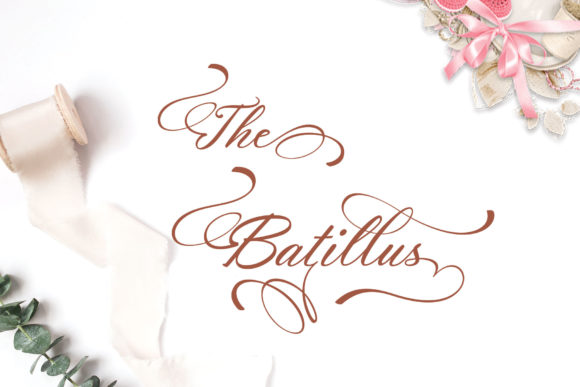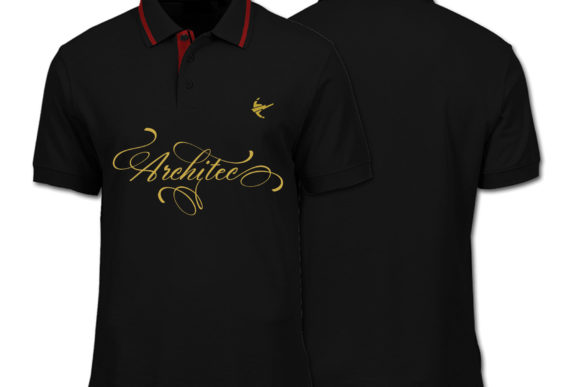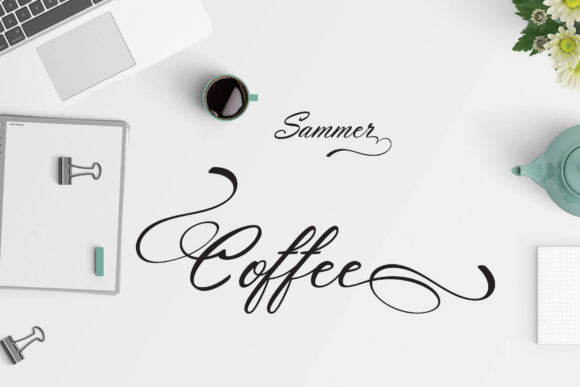
Introduction to Arthevas Font
The Arthevas is a modern calligraphy font.
It has an amazing handwritten look and includes magnificent swashes It has gorgeous grounds and is furnished with fine lines.
Why Choose Arthevas Font?
Arthevas Font offers exceptional quality and versatility, making it a valuable addition to your design toolkit. Whether you’re creating for personal projects or commercial use, Arthevas Font delivers professional results.